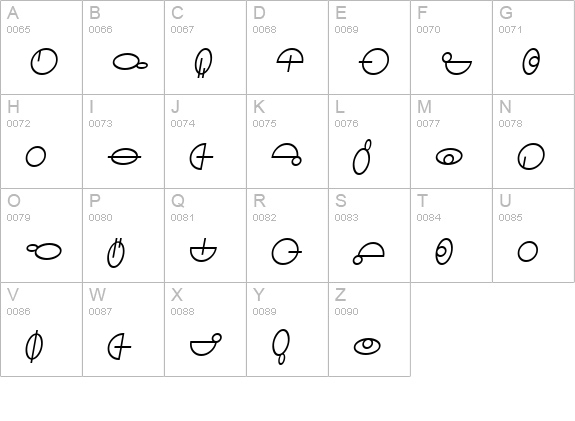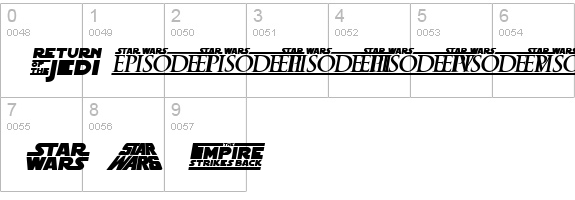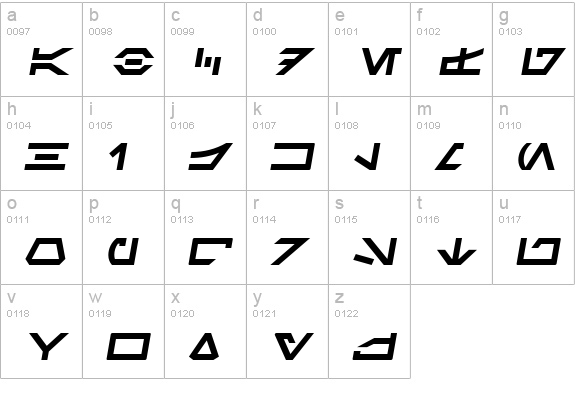
SF Distant Galaxy Symbols Italic Font Details
SF Distant Galaxy Symbols Italic is a distinctive, italic variant in the SF typeface family \xE2\x80\x94 well suited to design and typography projects.
Introducing SF Distant Galaxy Symbols Italic font, the perfect choice for those seeking a font that embodies the spirit of a distant galaxy. With its sleek and futuristic design, this font adds a touch of otherworldly charm to any project or design. The SF Distant Galaxy Symbols Italic font features a unique combination of sharp edges and flowing lines, creating a sense of movement and energy. Its italicized style adds an extra touch of elegance and sophistication, making it ideal for titles, headlines, logos, and more. This font is not only visually stunning but also versatile and easy to use. Whether you're designing a science fiction book cover, creating a space-themed poster, or even just adding a touch of cosmic flair to your social media posts, SF Distant Galaxy Symbols Italic font is sure to bring your vision to life. And the best part? It's free! That's right, you can freely download the SF Distant Galaxy Symbols Italic font at FontsMarket.com. No need to worry about breaking the bank or sacrificing quality. This font delivers top-notch style without costing a dime. So why wait? Embrace the wonders of the universe and elevate your designs with SF Distant Galaxy Symbols Italic font. Download it today at FontsMarket.com and let your creativity soar to new galaxies.